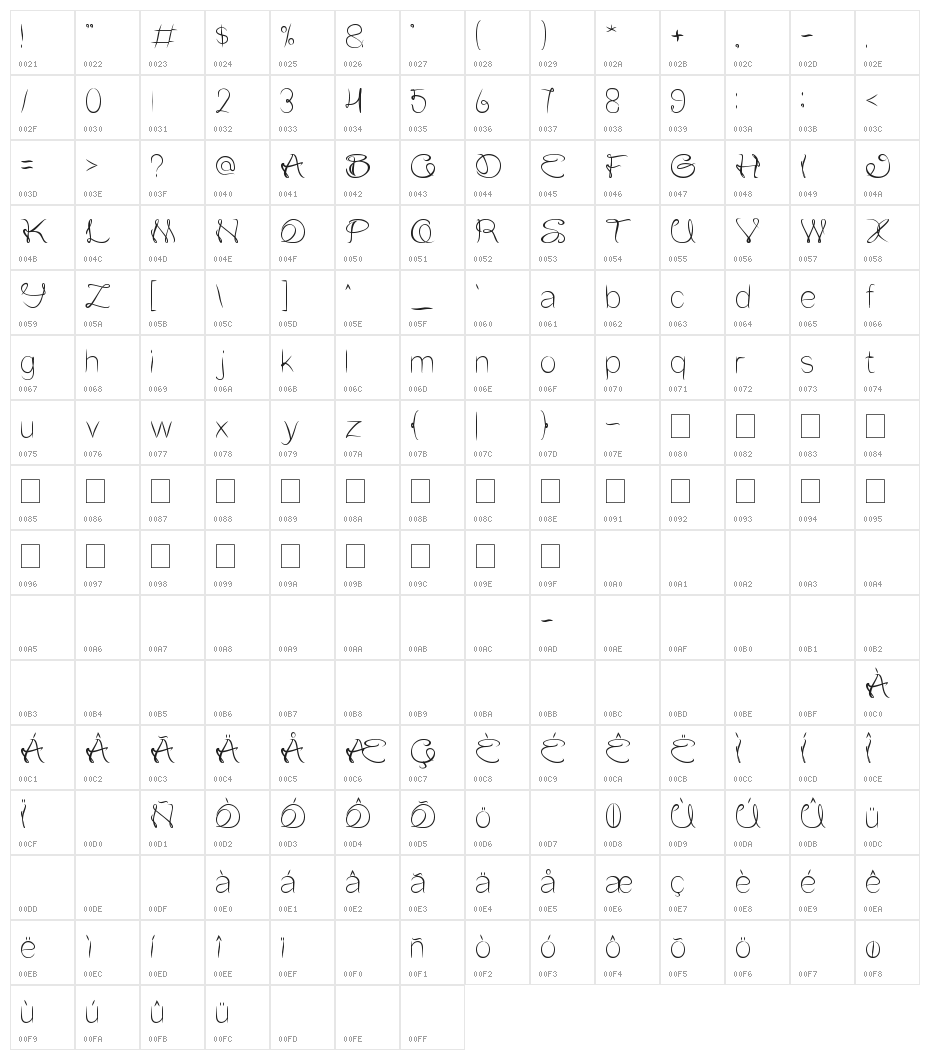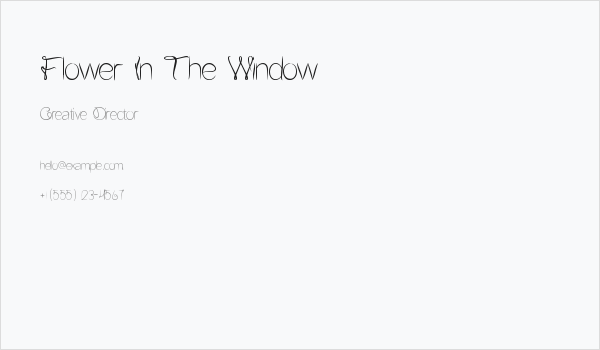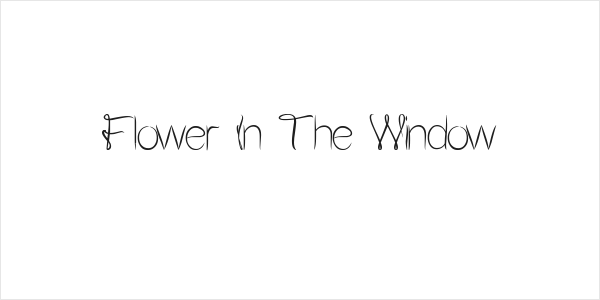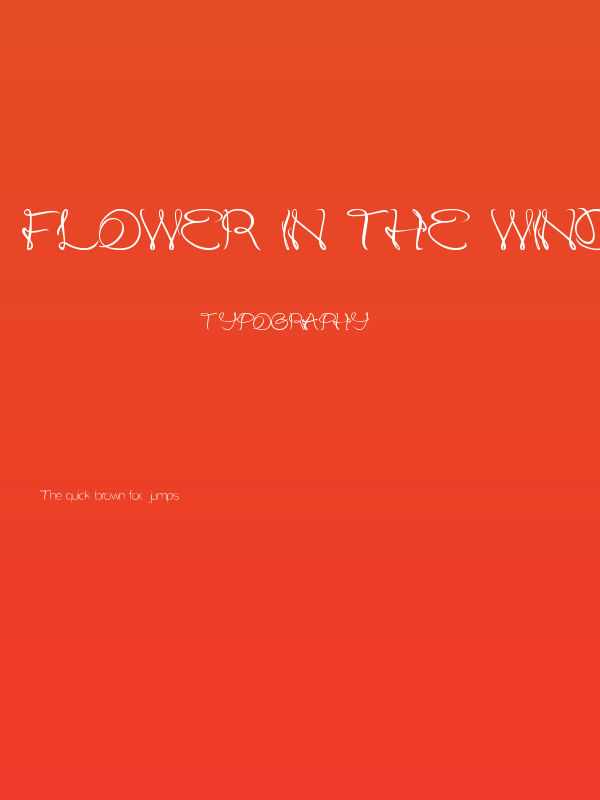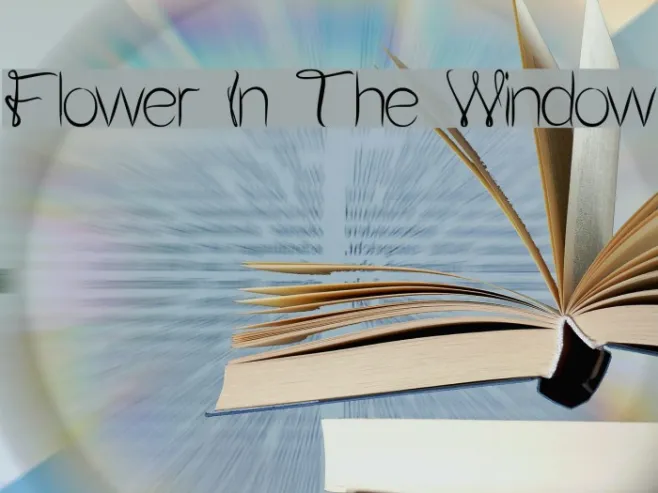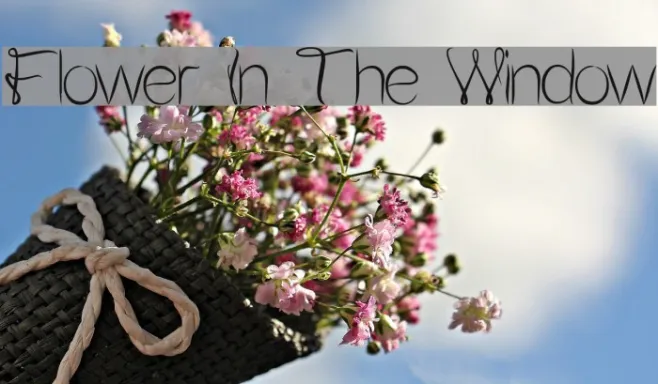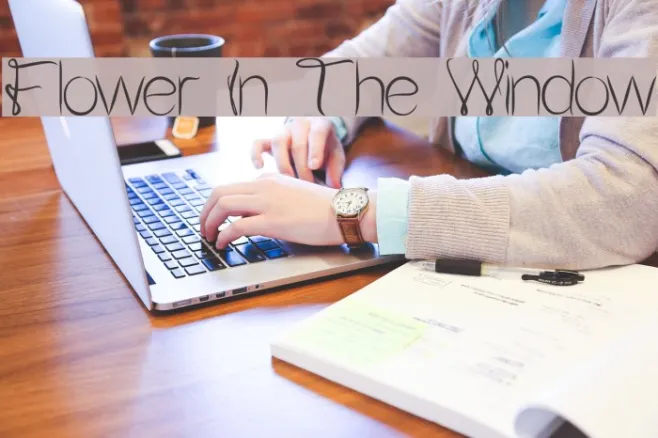
Flower In The Window Font
Flower In The Window Description
This font features a whimsical and decorative style, characterized by its flowing, interconnected strokes and playful loops. The uppercase letters exhibit a unique blend of curves and sharp angles, creating an artistic and dynamic appearance. The lowercase letters maintain a consistent style, with elongated ascenders and descenders that add to the font's elegance. Numbers and special characters are designed to match the overall aesthetic, ensuring a cohesive look. The font's intricate design makes it suitable for creative and expressive projects, where a touch of flair is desired.
| Use Case | Headlines, Artistic projects, Branding |
| Proposed Projects | Ideal for greeting cards, invitations, artistic posters, and branding that requires a creative touch. |